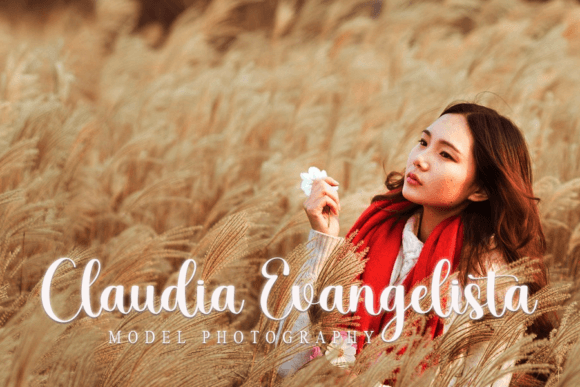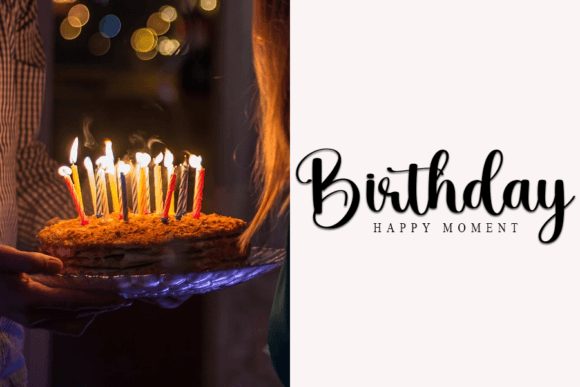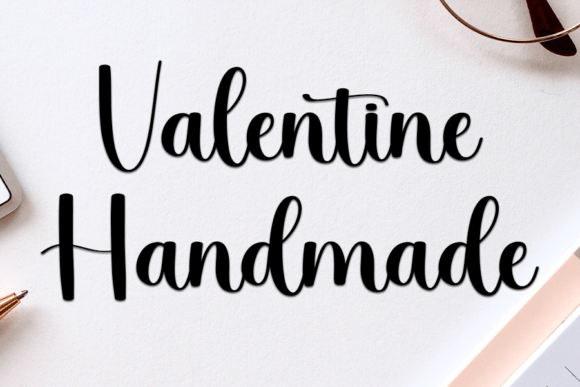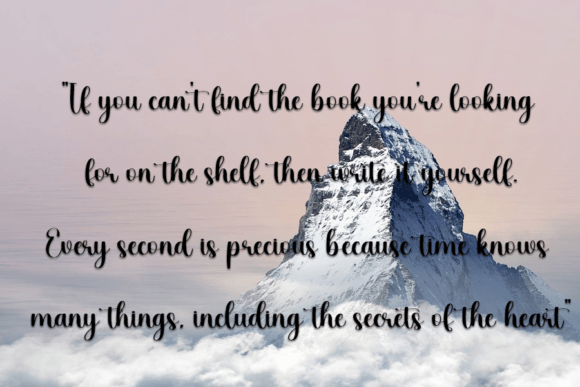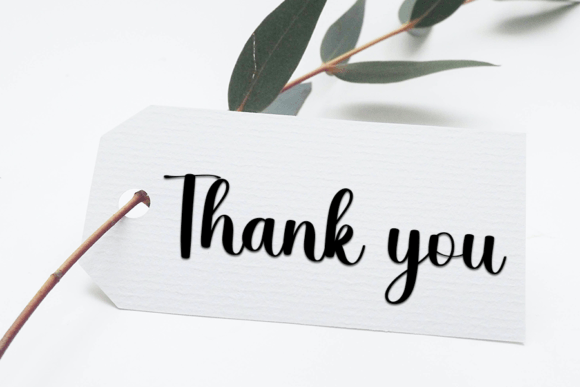
Introducing Bullet Font: The Delicate Handwritten Font for Unique Designs
In the world of typography, fonts play a crucial role in conveying the tone and personality of a design. For designers and crafters looking for a cool and unique font to elevate their projects, Bullet Font is an excellent choice. This delicate handwritten font is carefully crafted to add a touch of elegance and sophistication to various designs, from letters and invitations to food products and titles.
What is Bullet Font?
Bullet Font is a beautiful, hand-crafted font designed to bring a sense of refinement and style to your designs. Its delicate lines and curves make it perfect for creating visually appealing text that stands out from the crowd. Whether you’re working on a personal project or a professional assignment, Bullet Font is an excellent choice for adding a touch of personality to your work.
Key Features of Bullet Font
- Handwritten style: Bullet Font boasts a beautiful, handwritten style that adds a personal touch to your designs.
- Delicate lines: The font’s delicate lines and curves make it perfect for creating elegant and sophisticated text.
- Versatile: Bullet Font can be used for a wide range of projects, from letters and invitations to food products and titles.
- Easy to read: Despite its delicate nature, Bullet Font is easy to read, making it perfect for body text and headings.
Use Cases for Bullet Font
Bullet Font is an incredibly versatile font that can be used for various design projects. Here are some use cases to get you started:
- Invitations: Use Bullet Font to create beautiful, elegant invitations for weddings, parties, and other special events.
- Food products: Add a touch of sophistication to your food product labels, packaging, and branding with Bullet Font.
- Lettering: Create stunning lettering pieces using Bullet Font, perfect for wall art, posters, and social media graphics.
- Titles and headings: Use Bullet Font to add a touch of elegance to your titles and headings, perfect for blogs, magazines, and websites.
Tips for Using Bullet Font
To get the most out of Bullet Font, here are some tips to keep in mind:
- Pair with bold fonts: Pair Bullet Font with bold fonts to create a striking contrast and add visual interest to your designs.
- Experiment with colors: Try out different colors and color combinations to add depth and personality to your designs.
- Use for headlines and titles: Use Bullet Font for headlines and titles to add a touch of elegance and sophistication.
In conclusion, Bullet Font is a beautiful, delicate handwritten font that’s perfect for designers and crafters looking to add a touch of elegance and sophistication to their designs. With its versatile nature and ease of use, Bullet Font is an excellent choice for a wide range of projects, from letters and invitations to food products and titles. So why not give Bullet Font a try and see how it can elevate your designs?
Whether you’re a seasoned designer or a crafty DIY enthusiast, Bullet Font is sure to inspire your creativity and help you create stunning designs that stand out from the crowd.